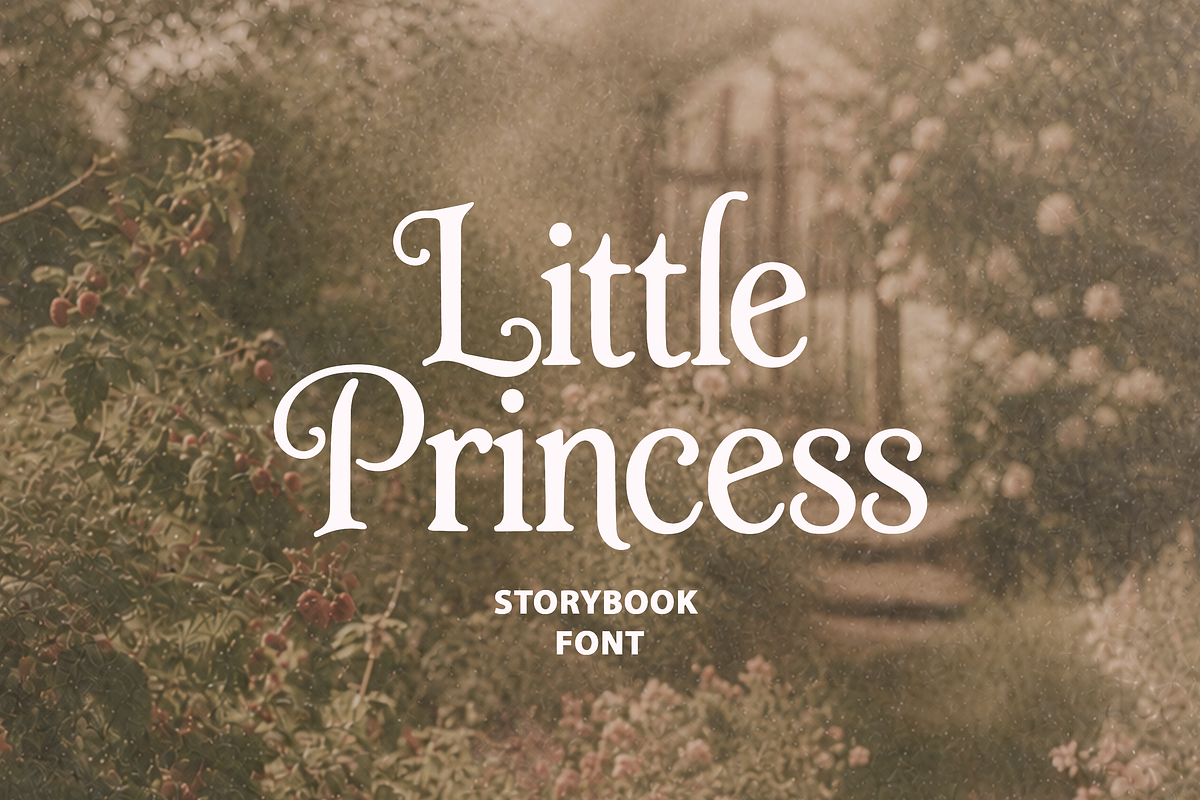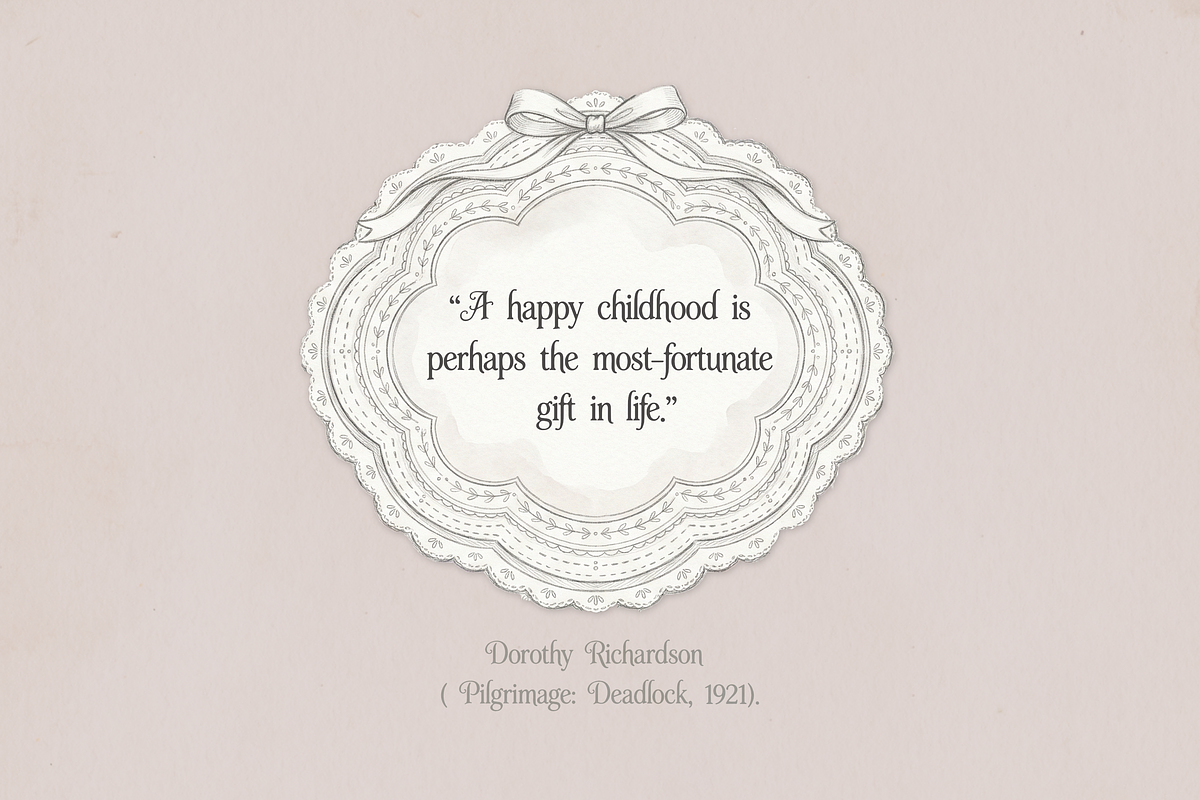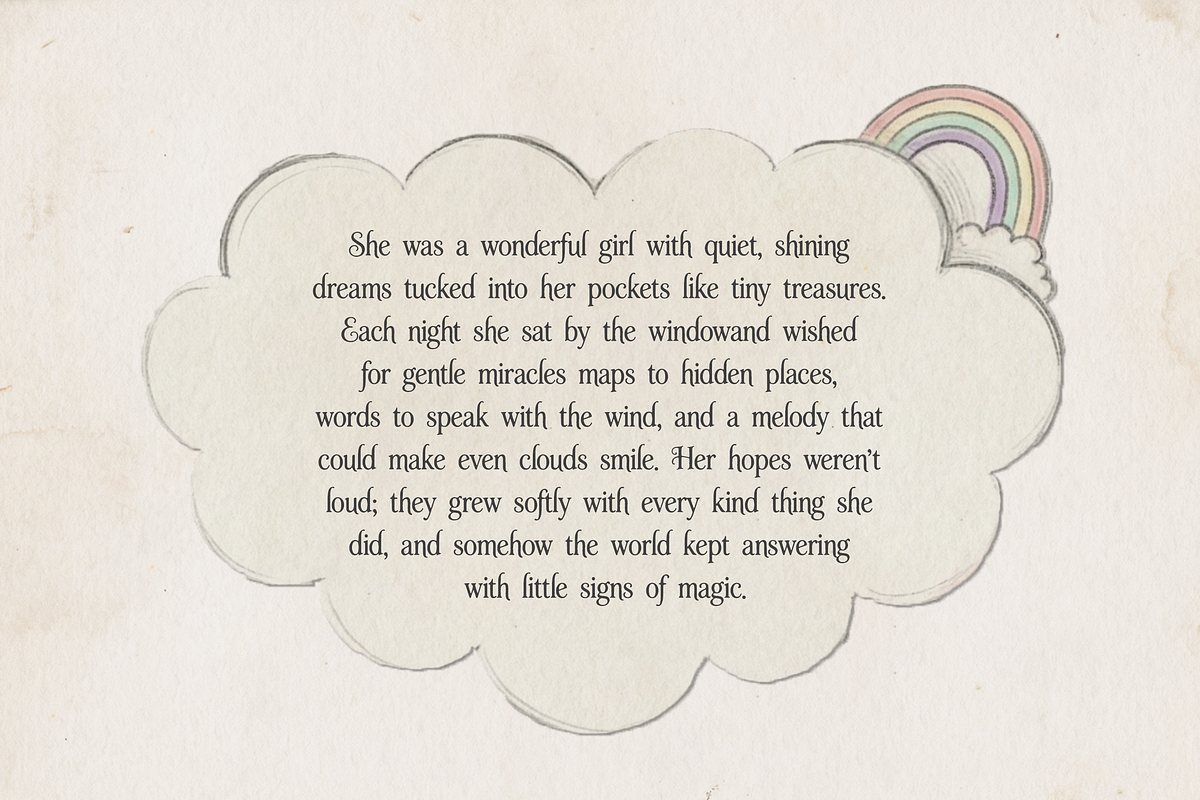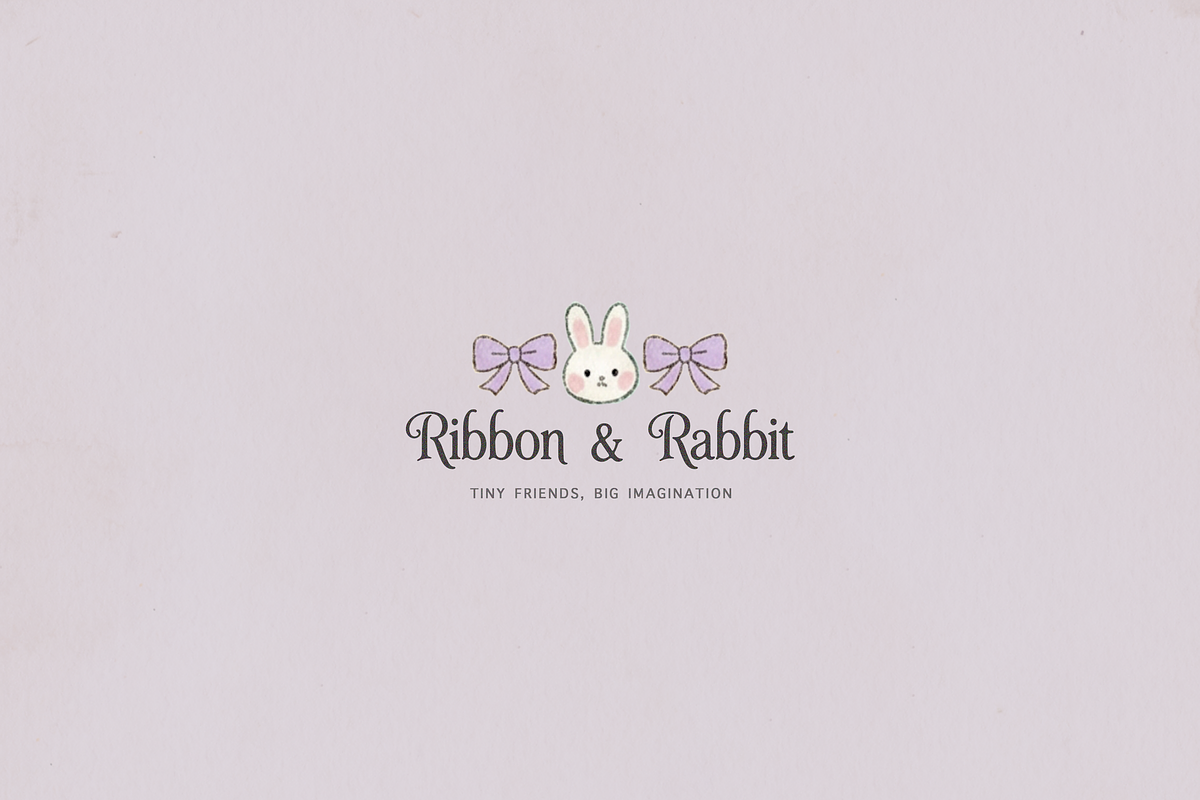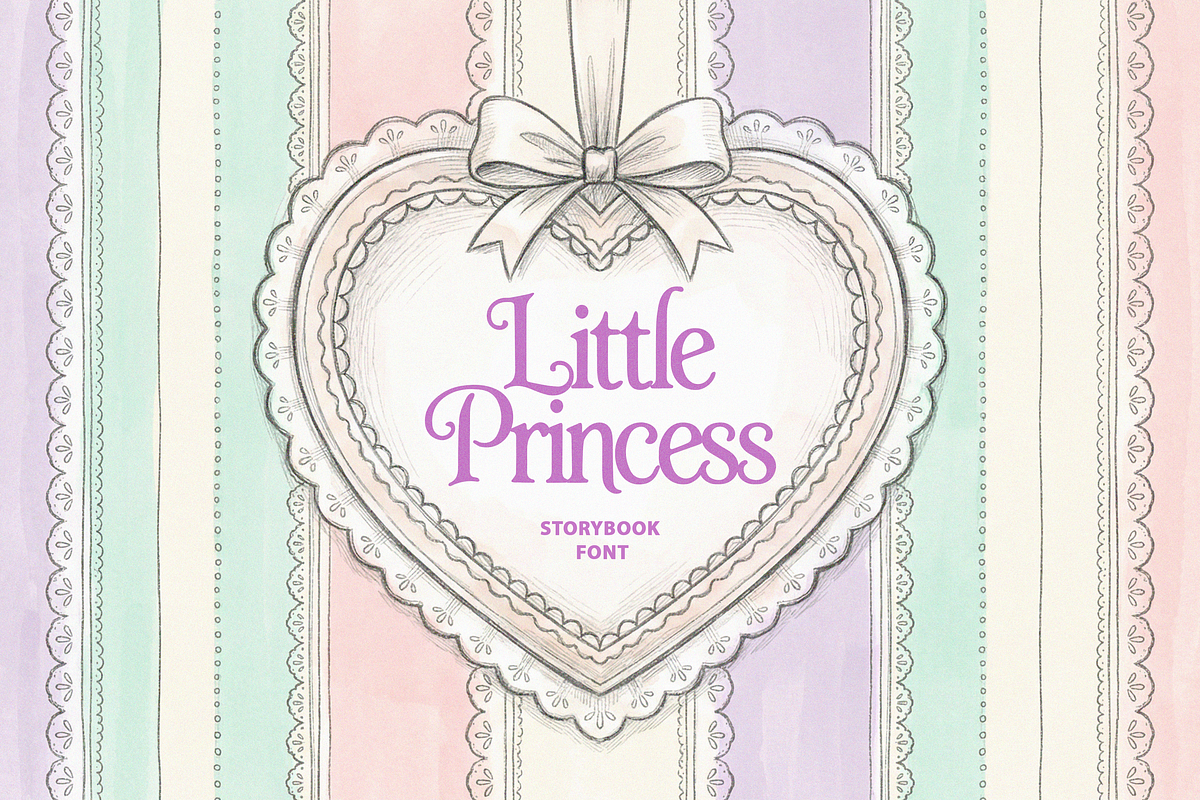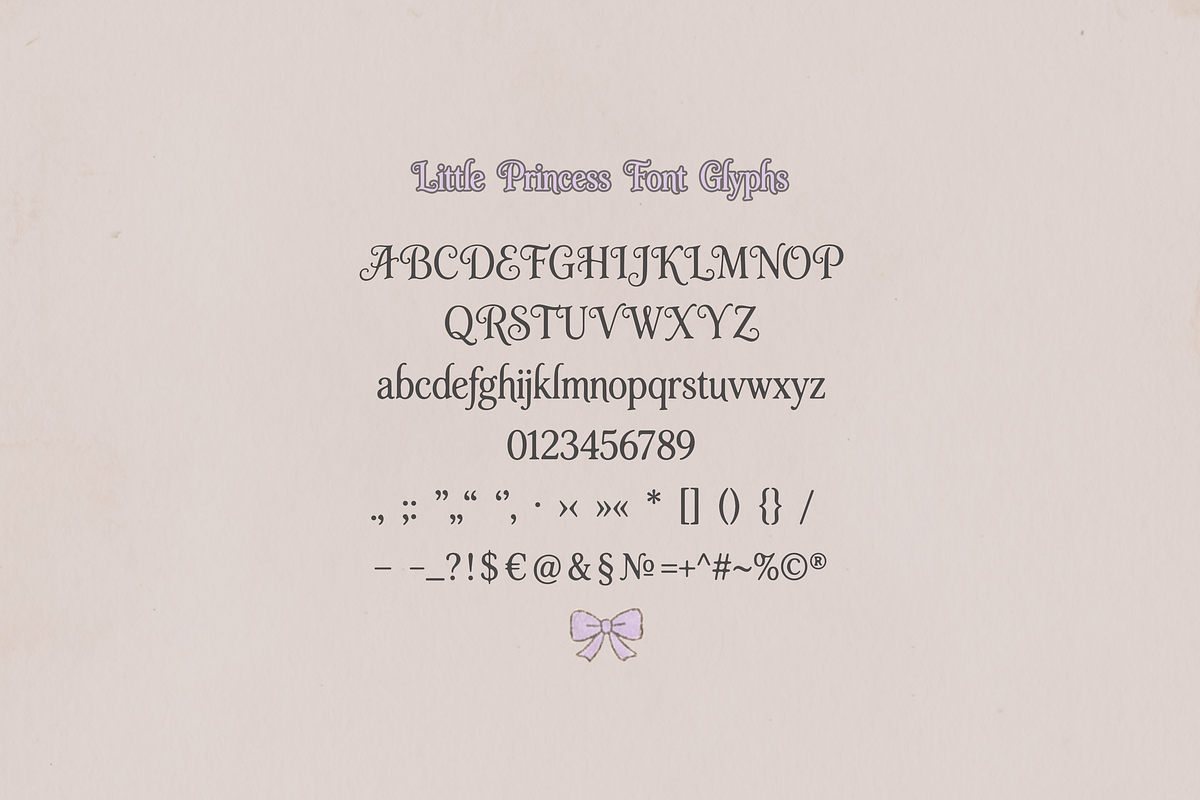
Little Princess Kids Font
Little Princess is a whimsical, storybook display serif with soft curves, delicate hairline details, and charming swirly terminals. It feels romantic and playful. Perfect for dreamy branding and cute, elegant titles.